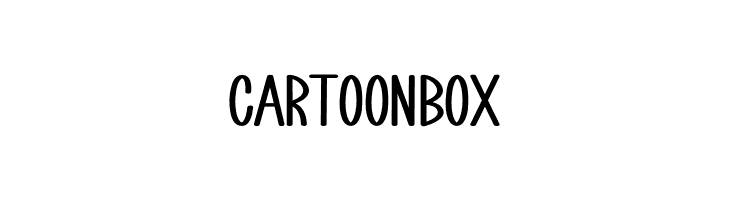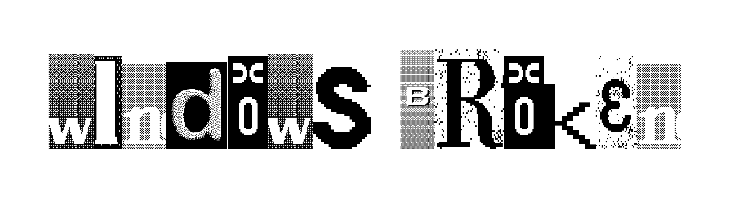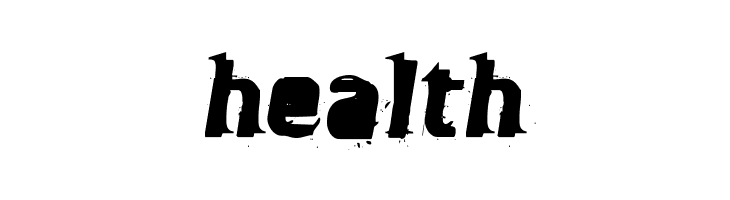
Playful handwritten font with rounded edges.
A bold, fragmented font with a dynamic and edgy design.
A bold, high-contrast font with geometric shapes and a modern, edgy style.
A bold, decorative font with a dotted texture and strong outlines.
A sleek, modern font with elongated, narrow letterforms and high contrast strokes.
A futuristic, geometric font with sharp angles and clean lines.
A bold, slanted, and angular font with a modern, energetic style.
A futuristic font with bold, circular, and geometric elements.
A bold, expressive script font with dynamic curves and a hand-painted feel.